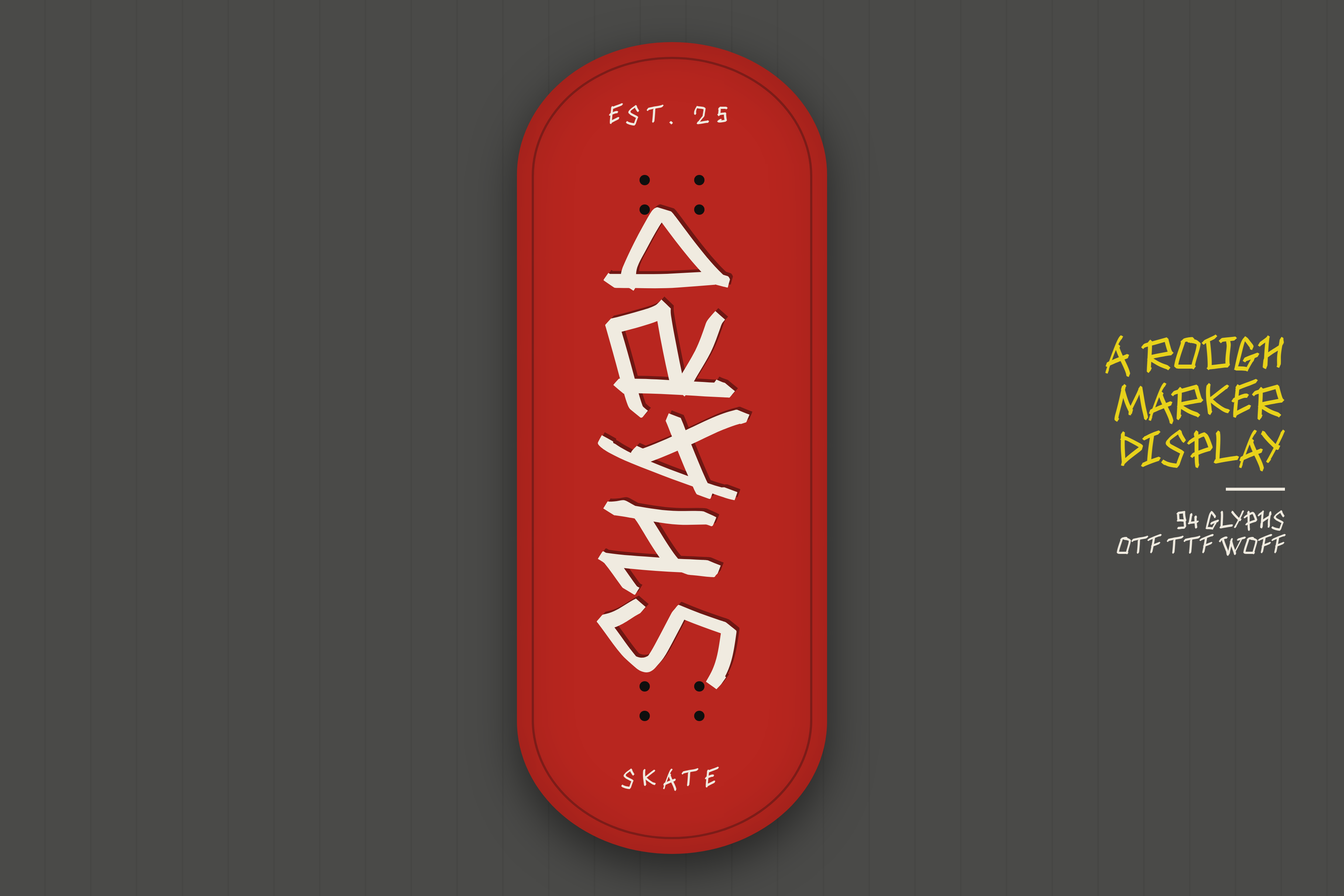
Shard — Rough Marker Display Font
Introducing Shard — a rough marker display font with raw, hand-drawn energy. Every letter is pulled with a fat marker at full speed — no grid, no polish, no apologies. It's loud, it's messy, and it's exactly what brands with attitude need.
Shard is the typeface you grab when "clean" isn't the vibe. Punk flyers, skate decks, mixtape covers, streetwear drops, band patches — anywhere you need a font that feels alive and a little dangerous.
- Gig posters & concert flyers
- Band merch & tour shirts
- Skateboard deck graphics
- Streetwear & hypebeast brands
- Mixtape covers & album art
- Zine covers & DIY publications
- Tattoo studio branding
- Energy drink & beverage labels
- Graffiti & street art
- Logo design & brand identities
- Social media posts & stickers
- Event tickets & stubs
- T-shirt & apparel graphics
- Hardcore, punk & metal music
WHY SHARD? Most "grunge" fonts try way too hard. Shard doesn't try at all — and that's why it works. The letters look like they were scrawled on a wall in two seconds with a dying marker. No filters, no textures faked in Photoshop, just raw energy in every stroke. If your brand has edge, attitude, or anything to say louder than a whisper, Shard is the font that says it for you. One typeface. Pure noise.